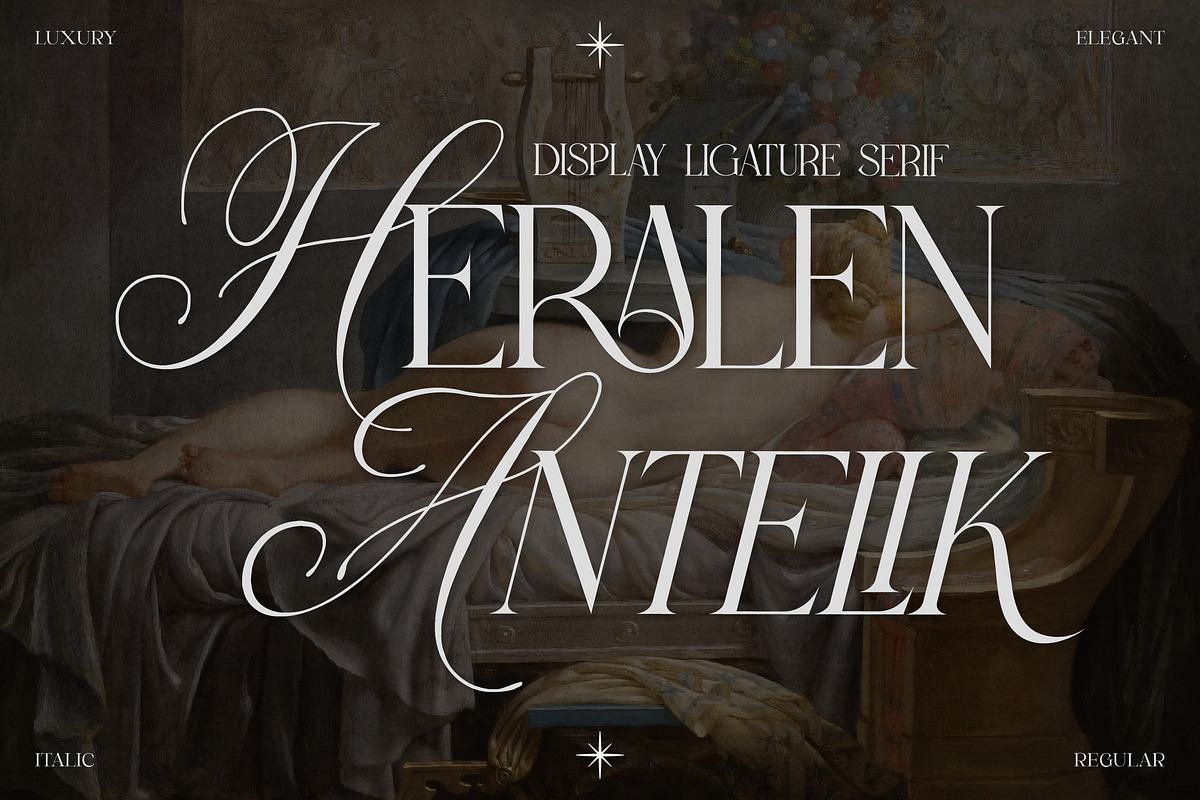
Heralen Antelik Display Serif Font Free Download
Heralen Antelik Display Serif Font Free Download is a bold and artistic serif typeface with high contrast strokes, elegant details, and a luxurious aesthetic. Designed for impact and style, this font is perfect for magazine covers, logo designs, fashion branding, invitations, and editorial headlines that require a refined yet dramatic look.
Heralen Antelik blends classic serif structure with a modern twist—featuring sharp serifs, graceful curves, and a distinct personality. It works beautifully as a standalone display font and pairs well with minimalist sans-serifs for a balanced visual hierarchy.
Make a bold statement with the timeless elegance of Heralen Antelik.